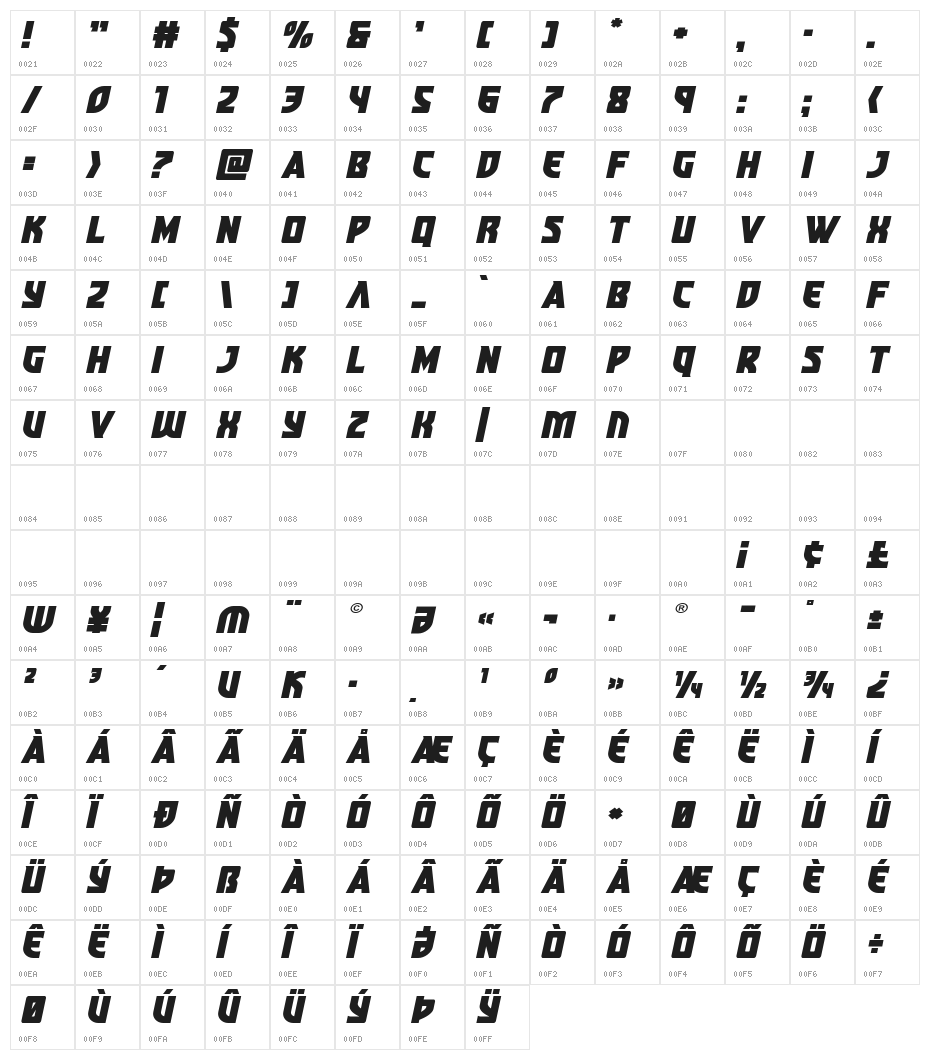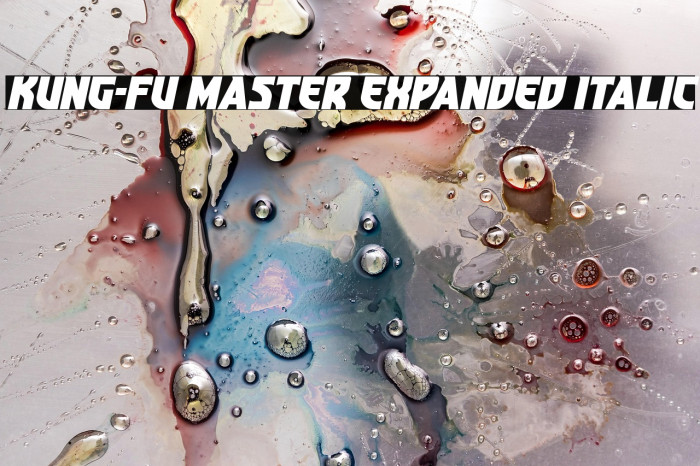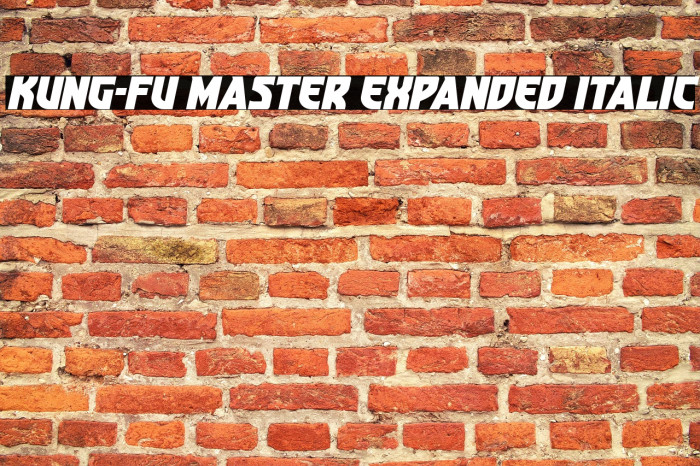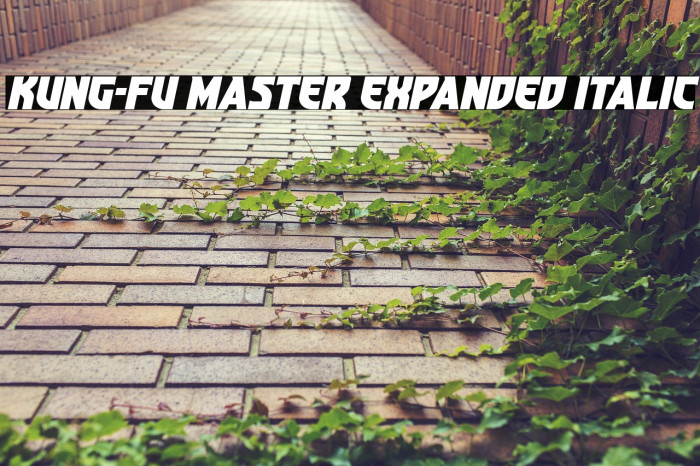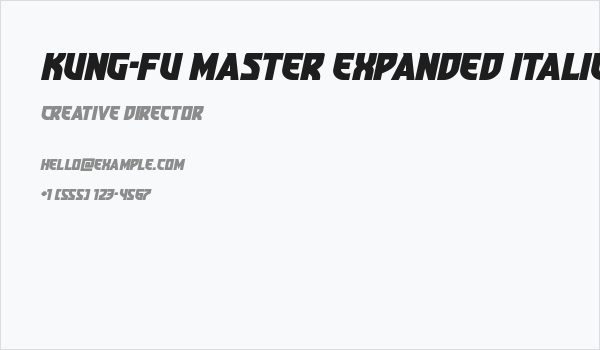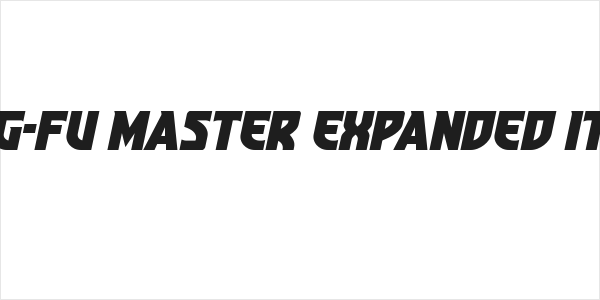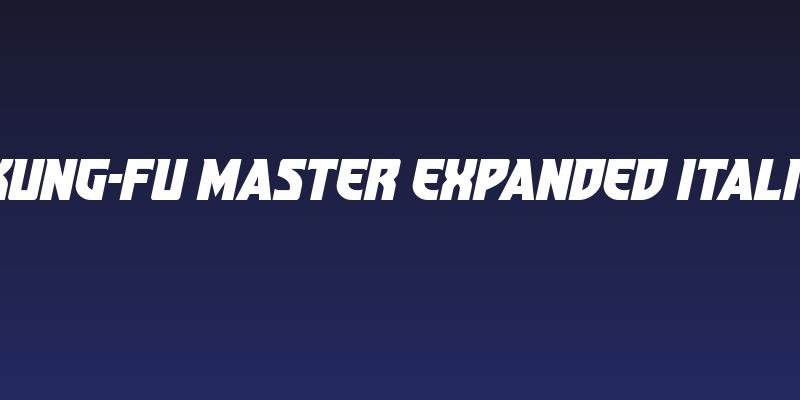
Kung-Fu Master Expanded Italic Font
Kung-Fu Master Expanded Italic Description
This dynamic and bold font exudes a sense of energy and movement, with its italicized and expanded letterforms. The angular and sharp edges give it a futuristic and aggressive appearance, making it ideal for projects that require a strong visual impact. The uppercase and lowercase letters maintain a consistent style, while the numbers and special characters complement the overall design. The font's unique style is perfect for capturing attention and conveying a sense of action or excitement.
Proposed ProjectsIdeal for action-themed posters, video game titles, sports branding, and dynamic advertisements.